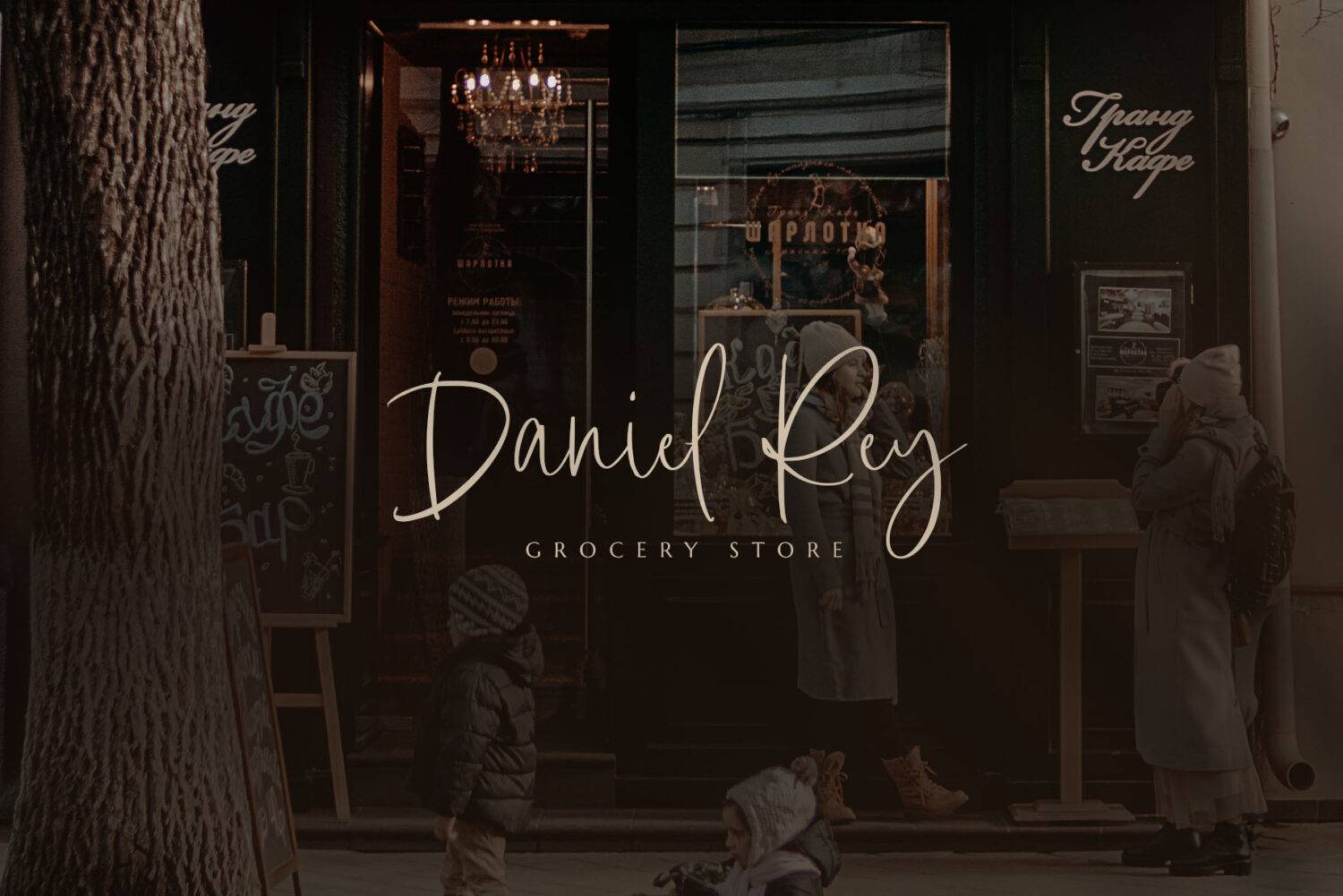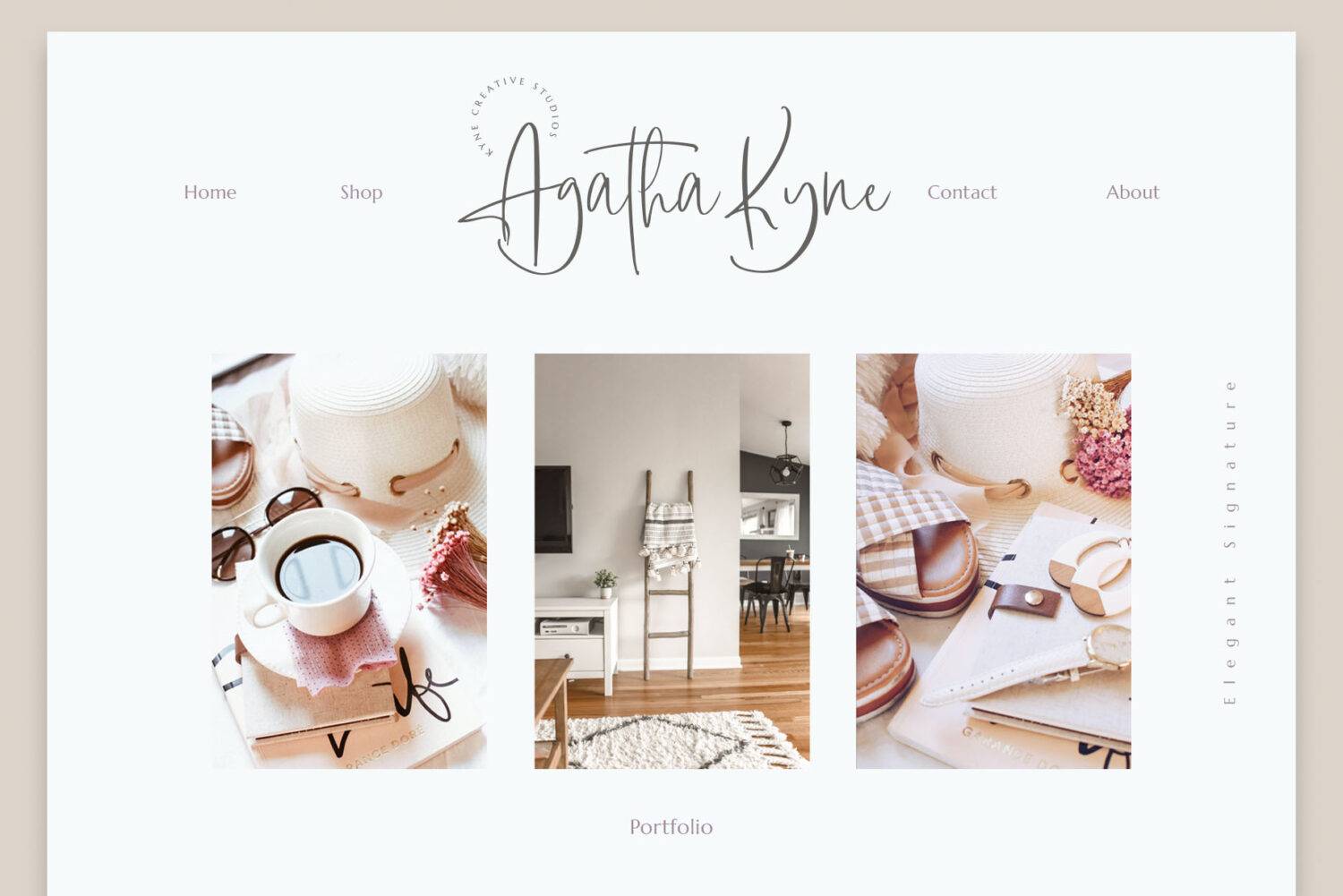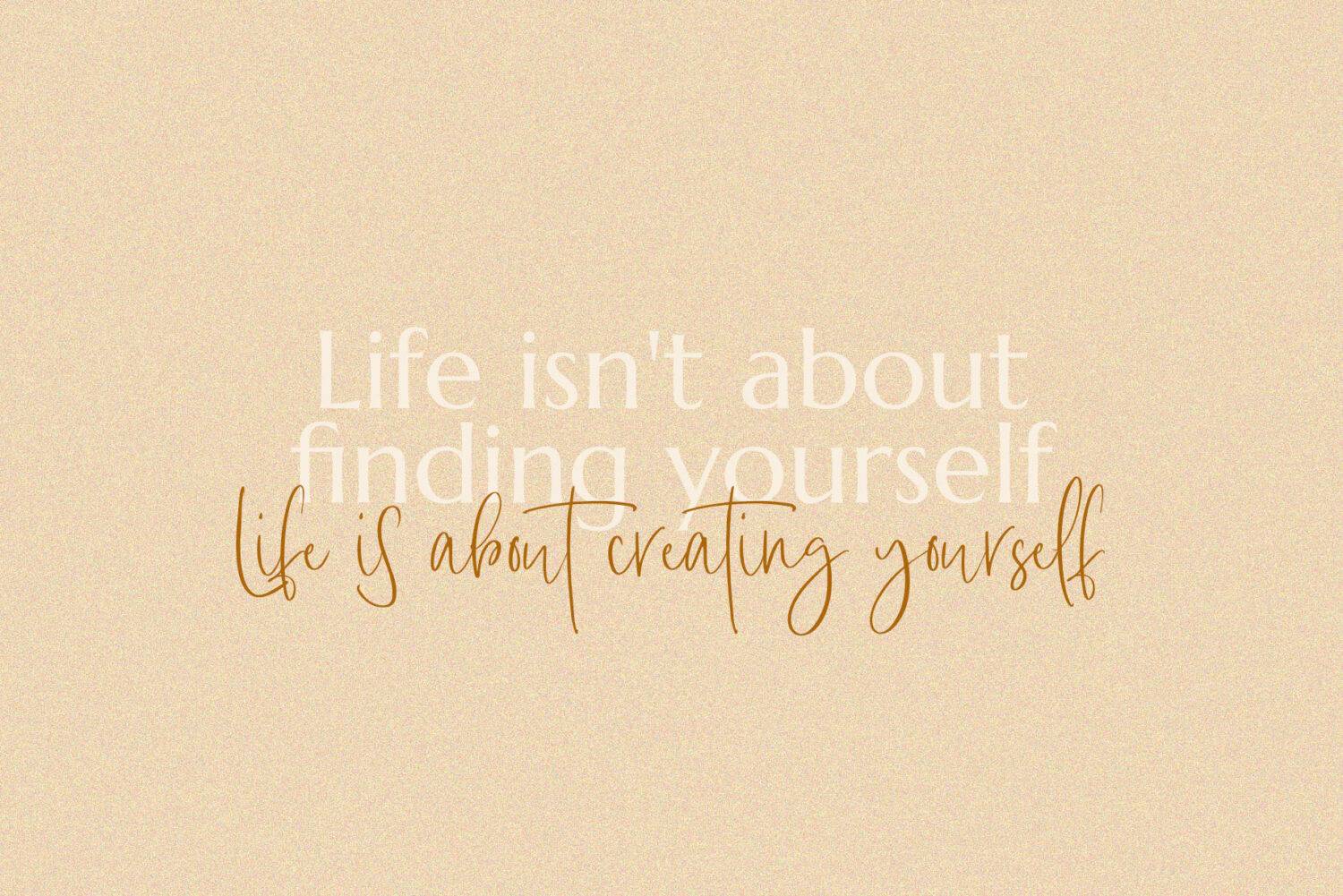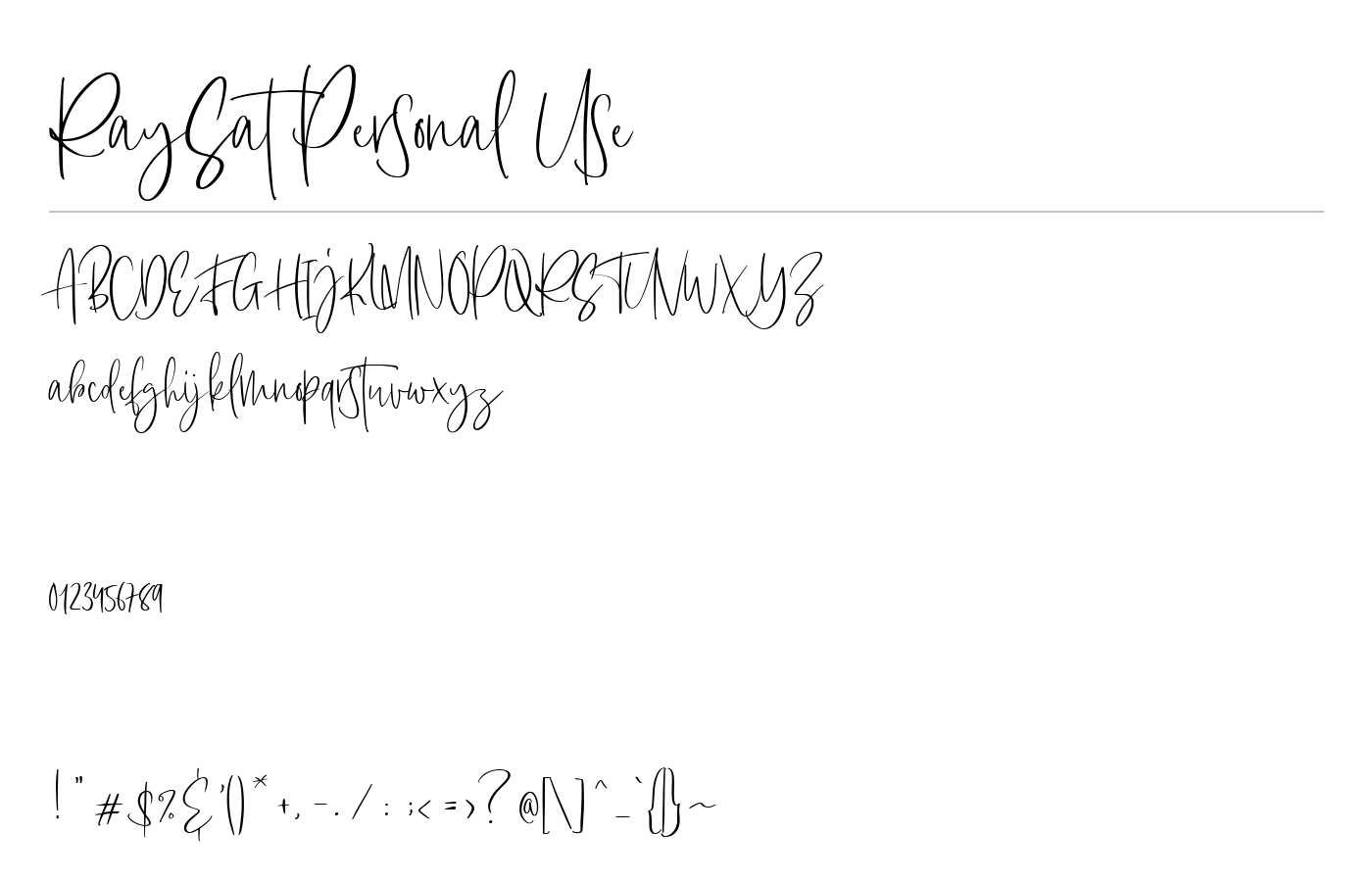
RaySat is a delicate and airy handwritten script font featuring tall, slender letterforms with a casual, flowing style. Its thin strokes and whimsical shapes give it a personal and artistic feel, making it perfect for creative projects, invitations, and branding that seek a charming, elegant touch. This font works well in designs that benefit from a light, graceful, and approachable aesthetic.
RaySat Font
About RaySat Font
| Font family | RaySat Font |
| Designer | Muhammad Naufal Anis |